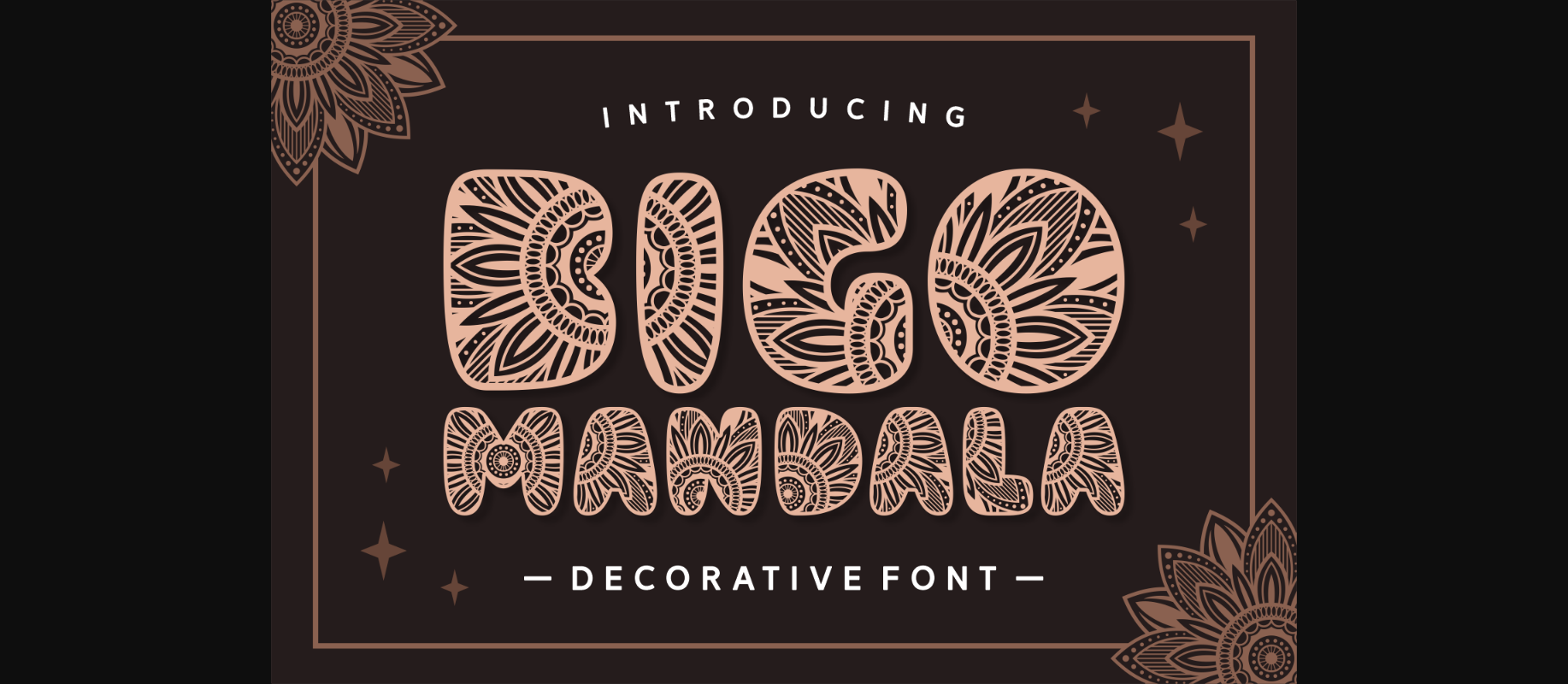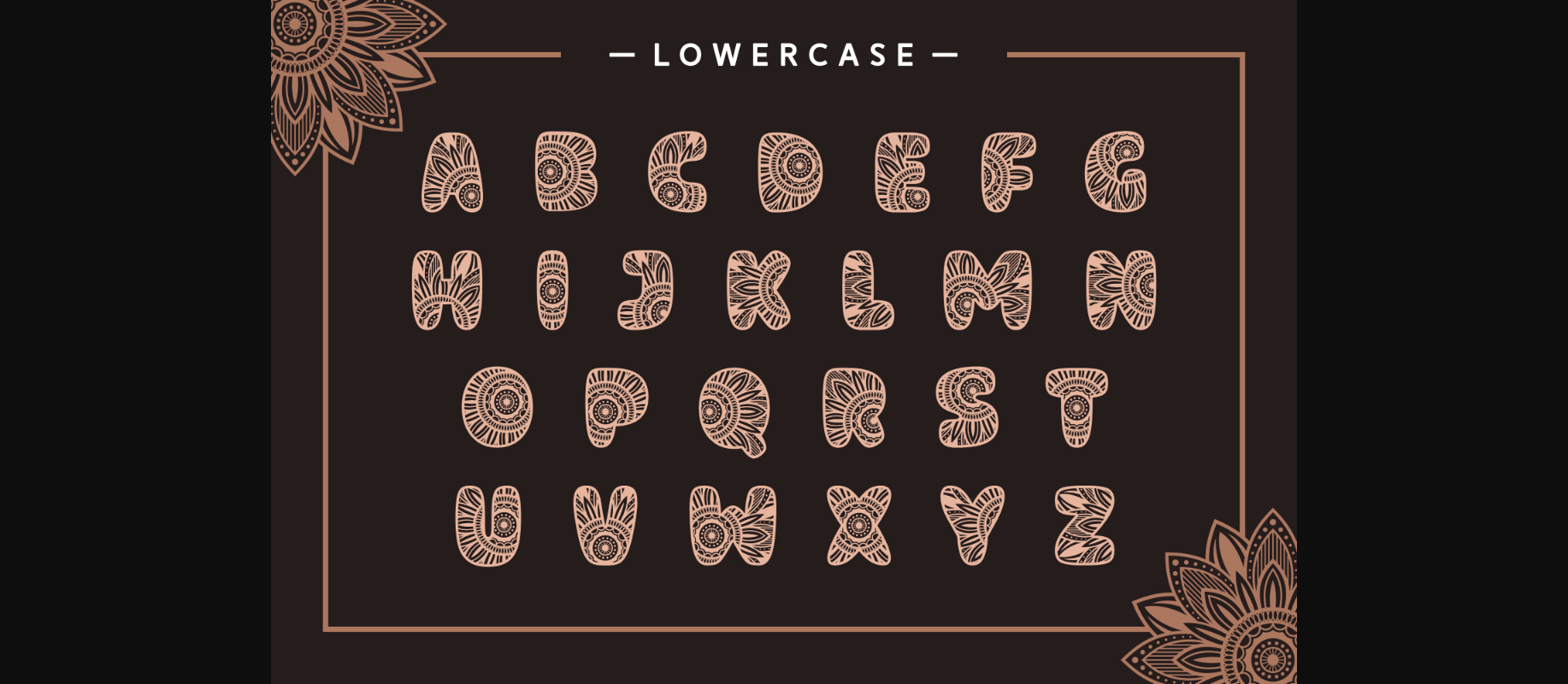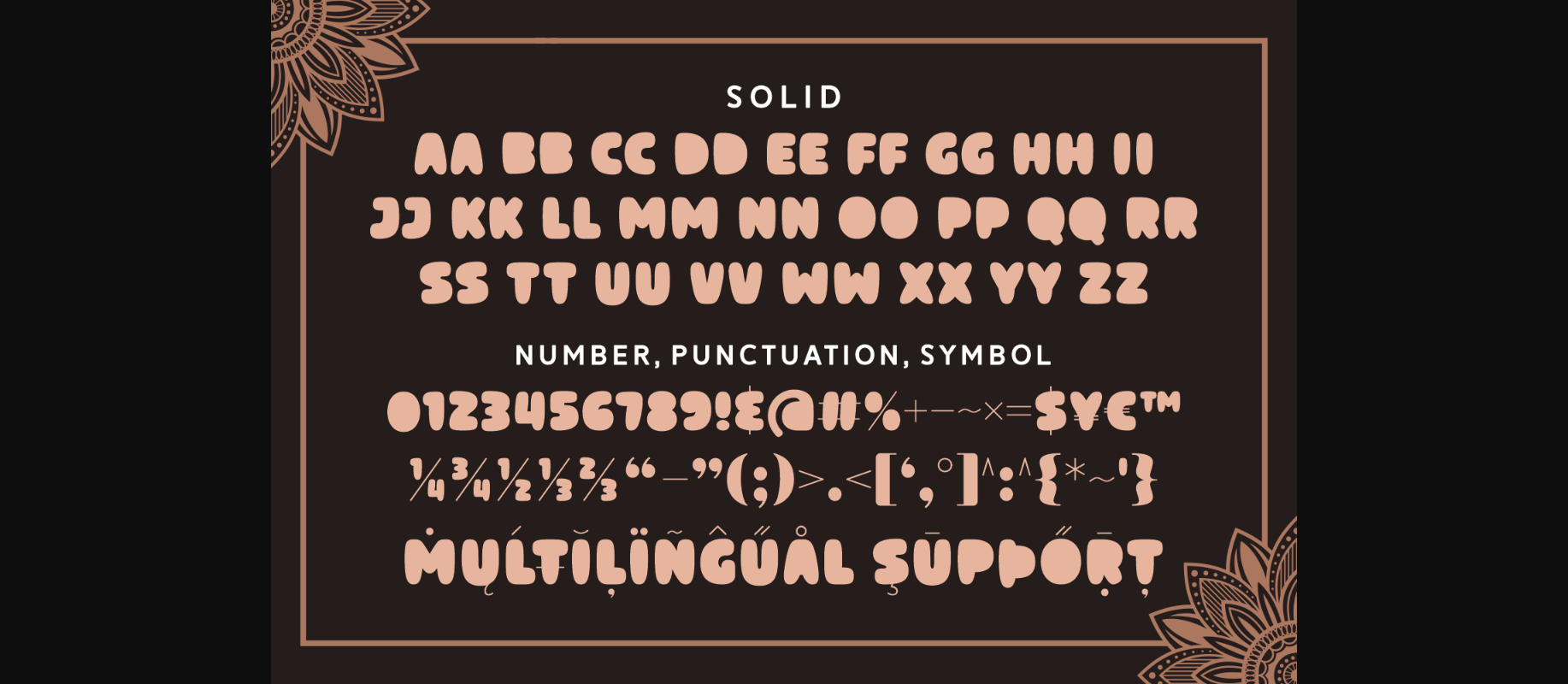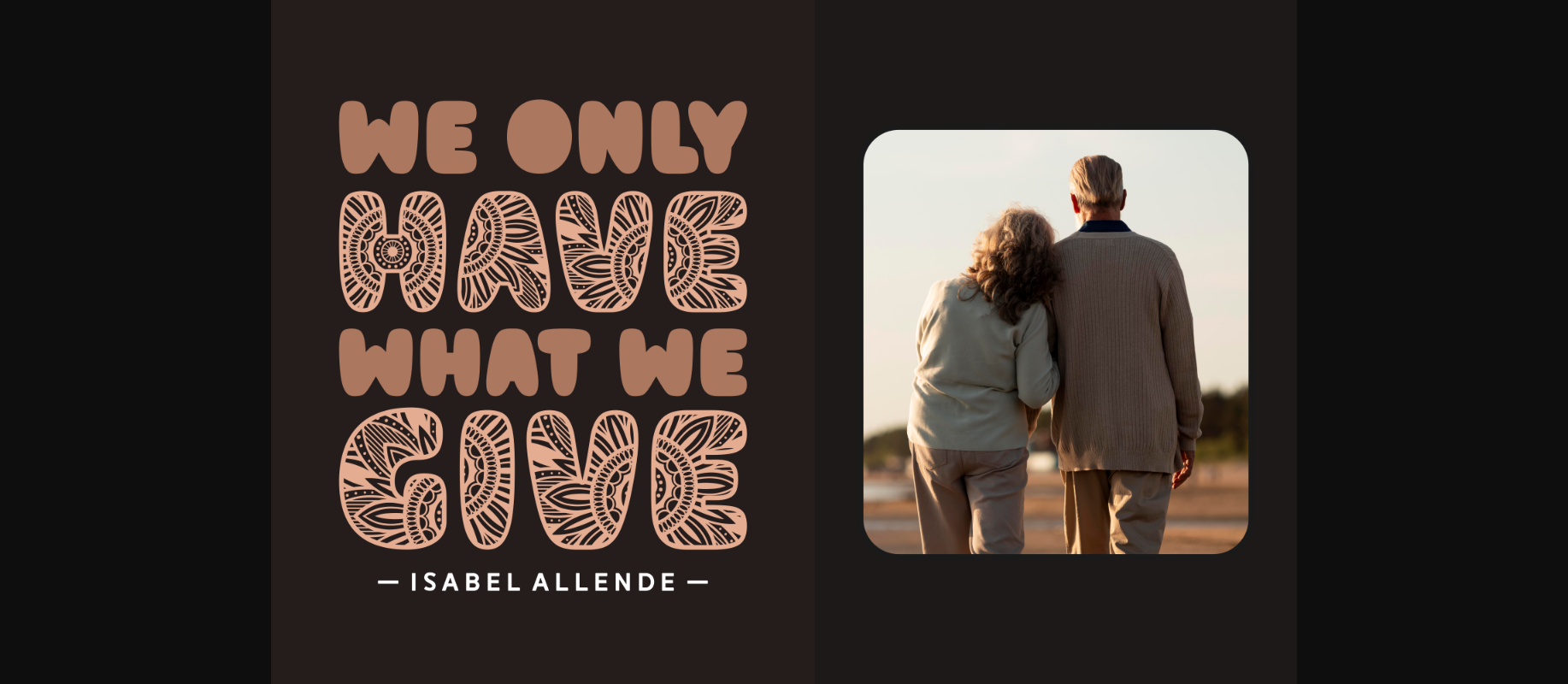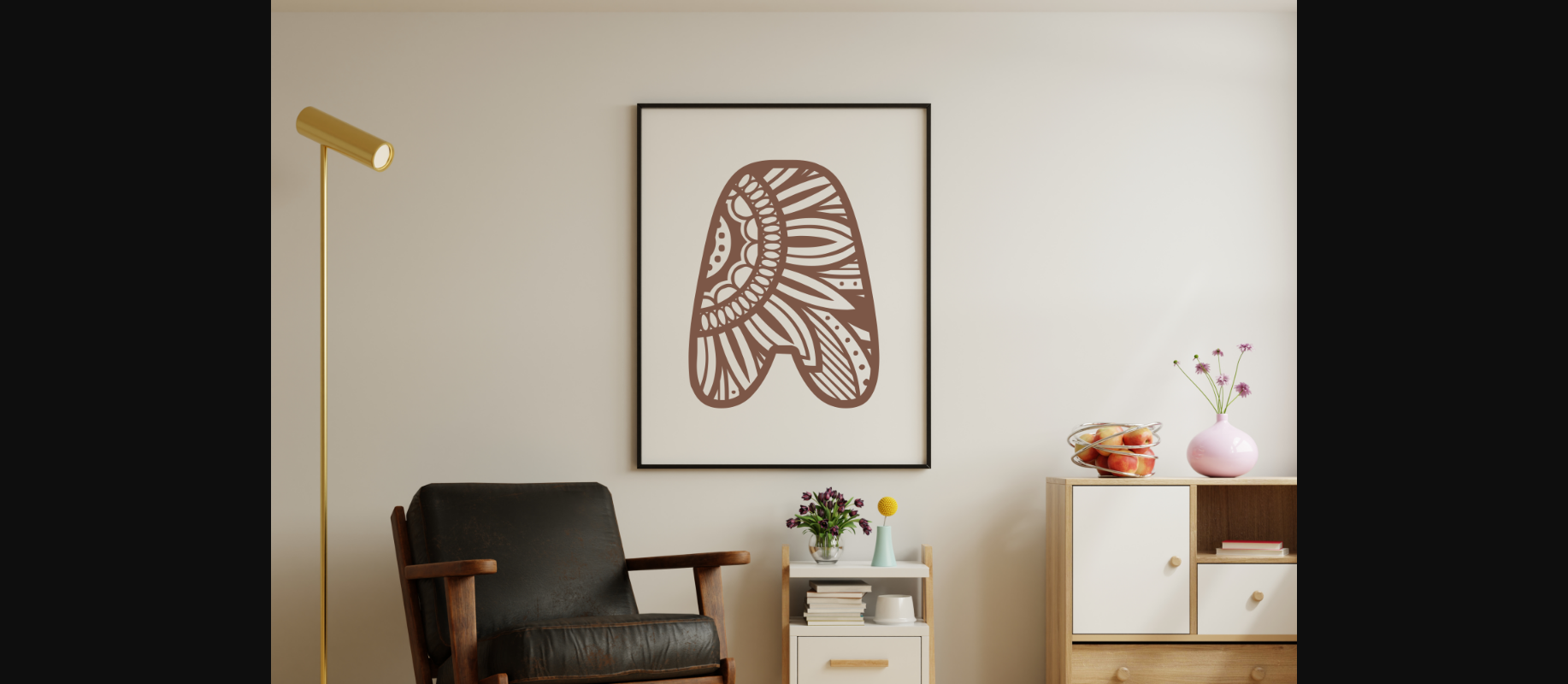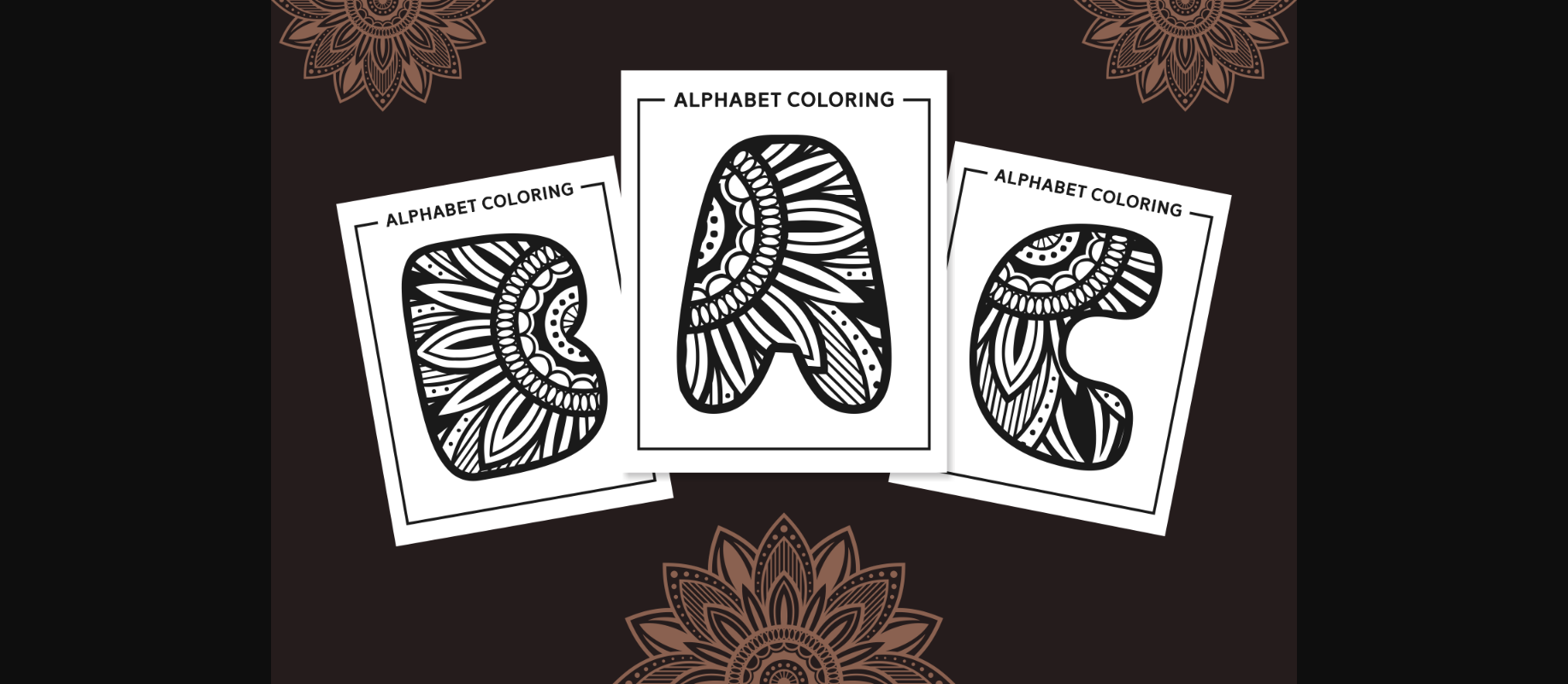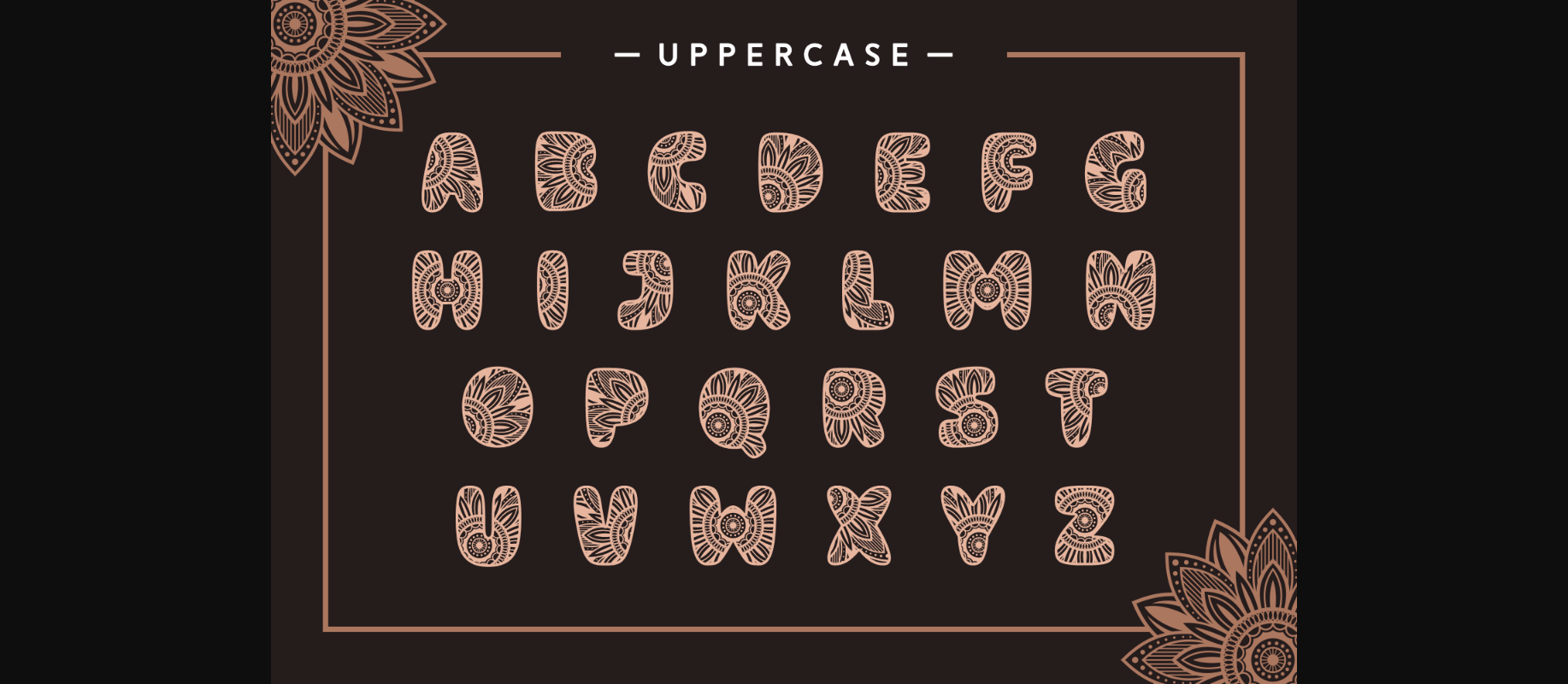
Bigo Mandala Font
About Bigo Mandala Font
Bigo Mandala is a stylish and intricate decorative font. No matter the topic, this font will be an incredible asset to your fonts’ library, as it has the potential to elevate any creation.